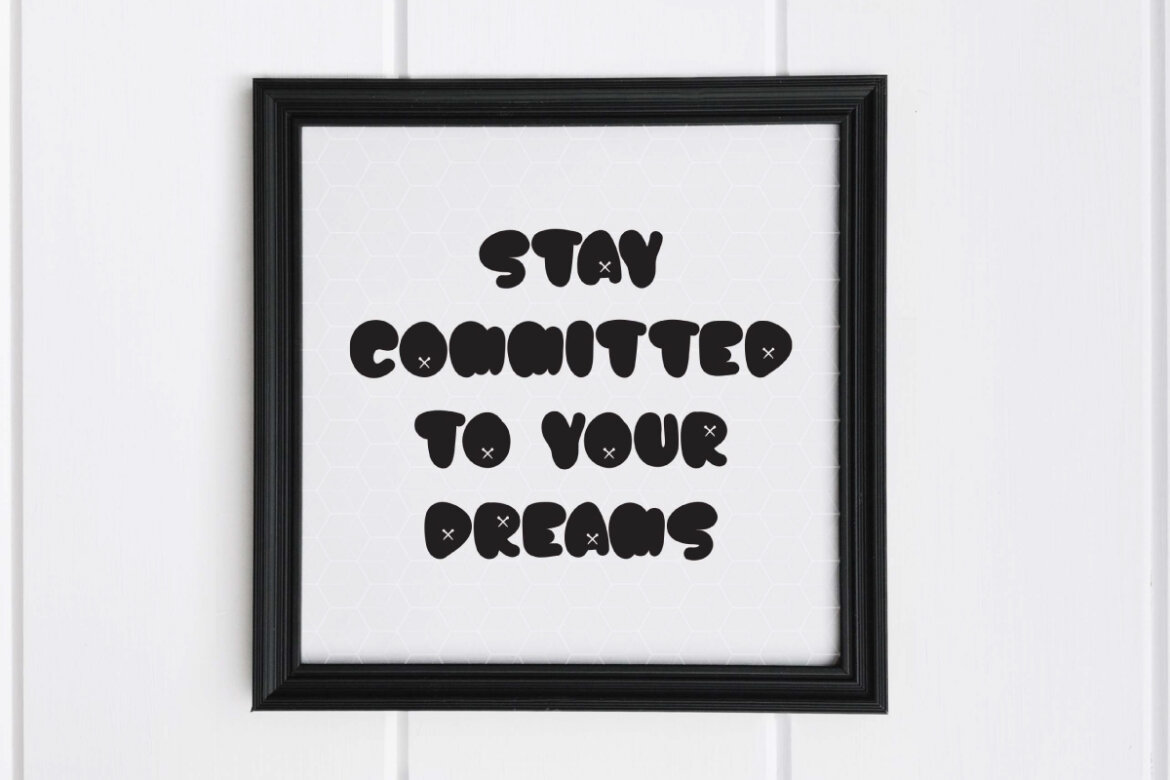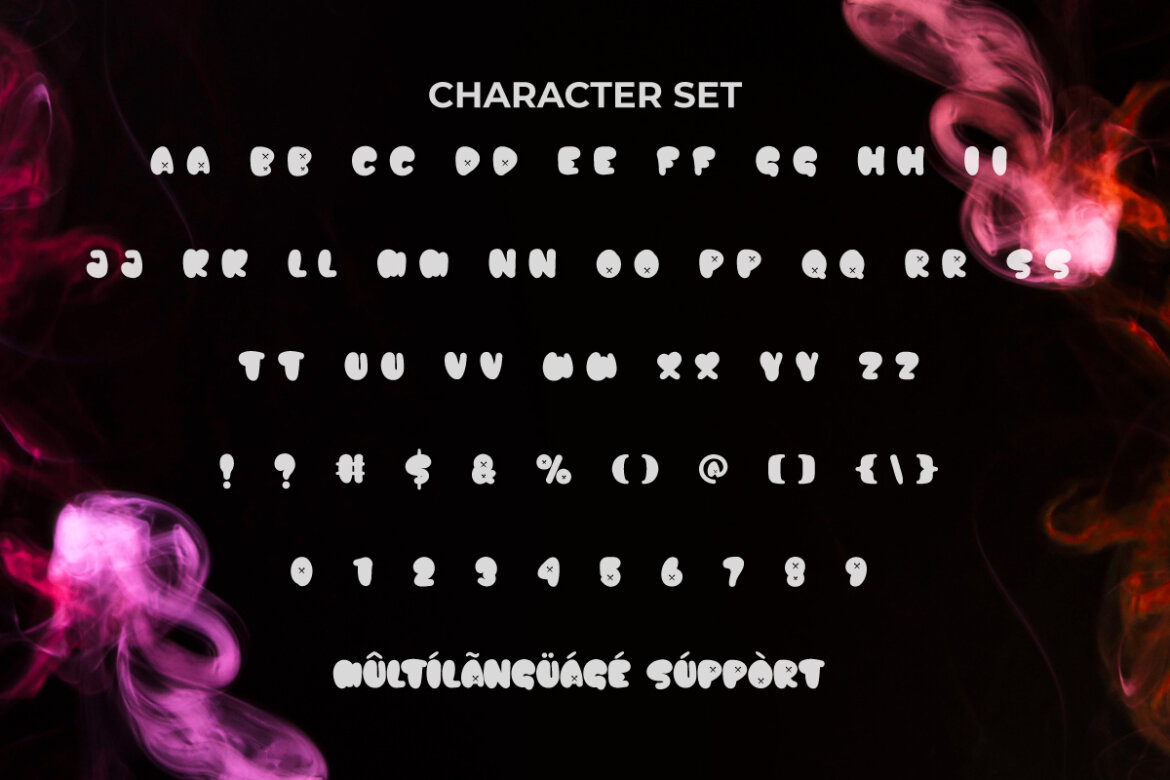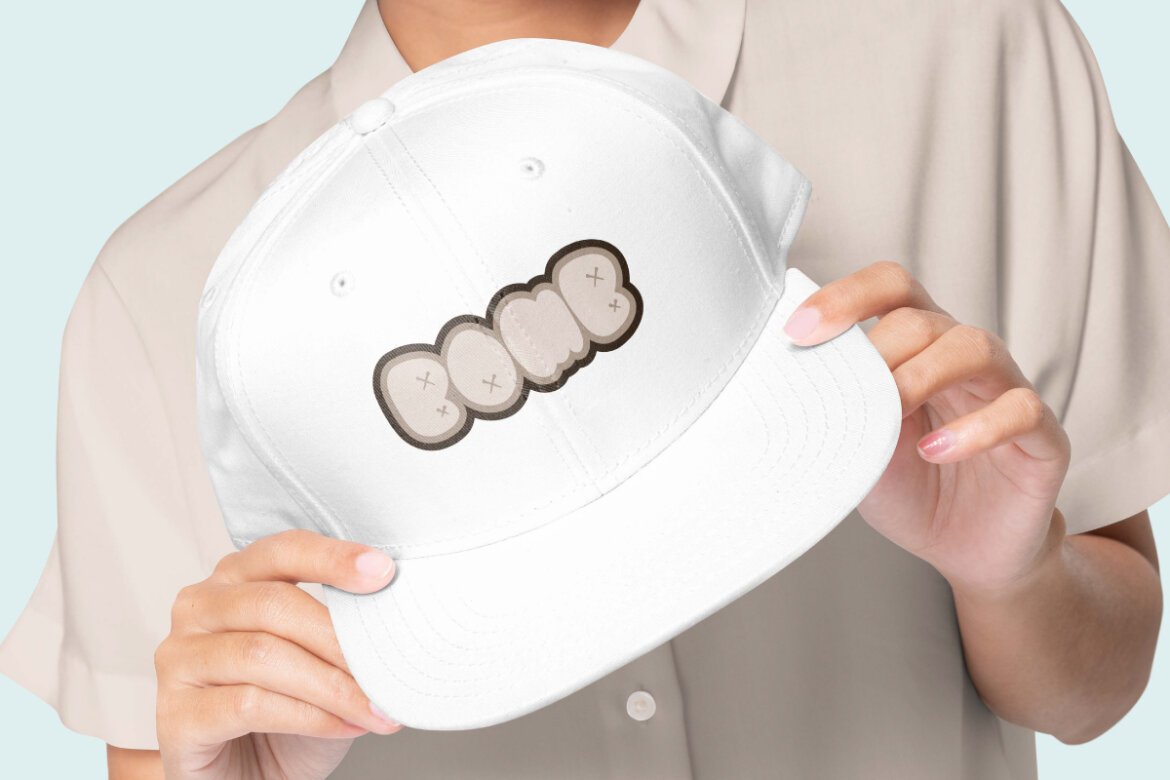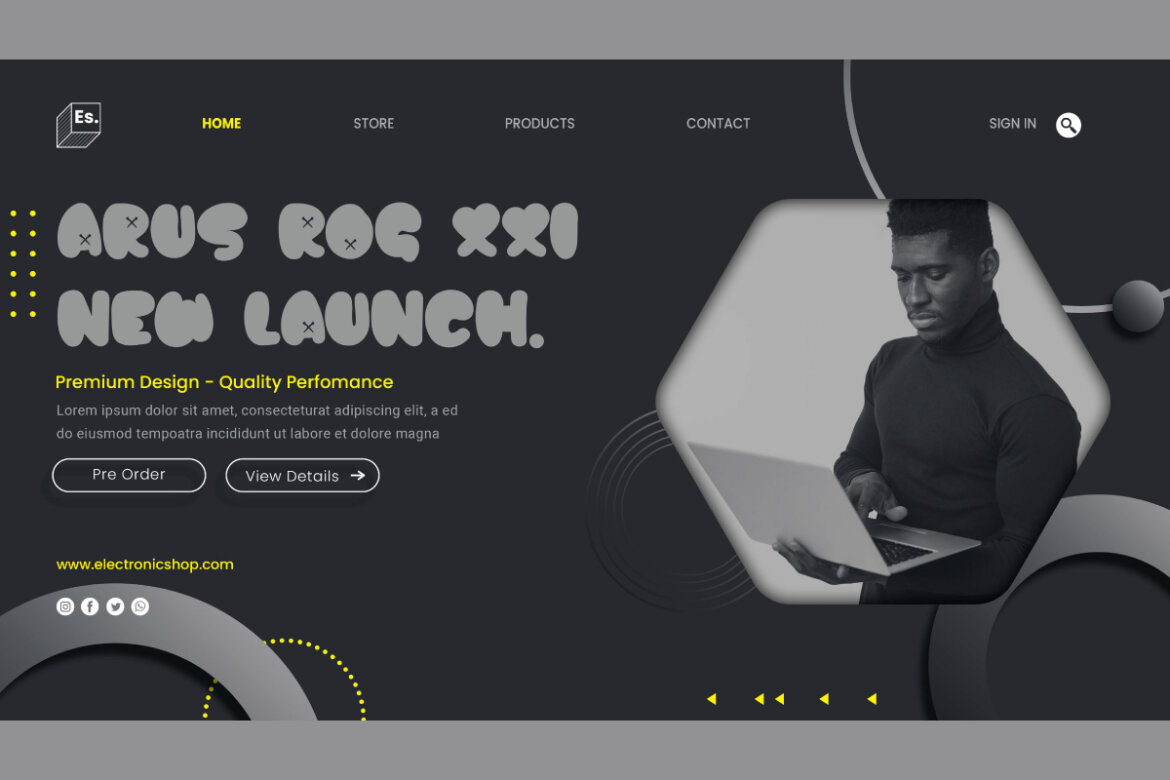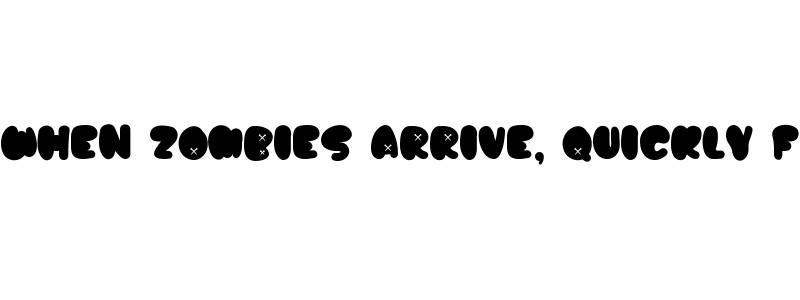
Smoke Bomb
Smoke Bomb Font is a trendy cute yet scary bubble display font with a classic look. It has trendy bubble display font with solid all caps. It is a combination of the essence of bubble dynamics with a modern and slightly funky style. Express creatively and be there to support your visual design, such as billboard, blogs, brand logo, brochure, cards, cover, flyer, header, packaging design, pamphlet, poster, product label, quotes, screen print, signage board, stationery, sticker, title, website, and more.
Smoke Bomb Font is a unique font concept with a slightly dangerous vibe making it perfect for industries that require a vibrant look, such as accessories & merchandise, cafe, entertainment, fashion, film, glassware, handicraft, music event, printing, publishing, retail, toy, web maker, etc. This versatile font is a must-have for inspiring projects and allowing you to use your imagination.
Smoke Bomb Font comes with a complete set all in ALL CAPS for the Basic Characters Uppercase and Lowercase, Number, a large range of Punctuation, and Symbol. It is supported with multilingual characters and ready to use both on Windows machine or Mac with simple installations. It’s tested to work well in the Adobe Apps (Illustrator, Adobe InDesign, Adobe Photoshop) CorelDraw, and others. PUA Encode Characters means you can access all the characters easily – Fully accessible without additional design software.